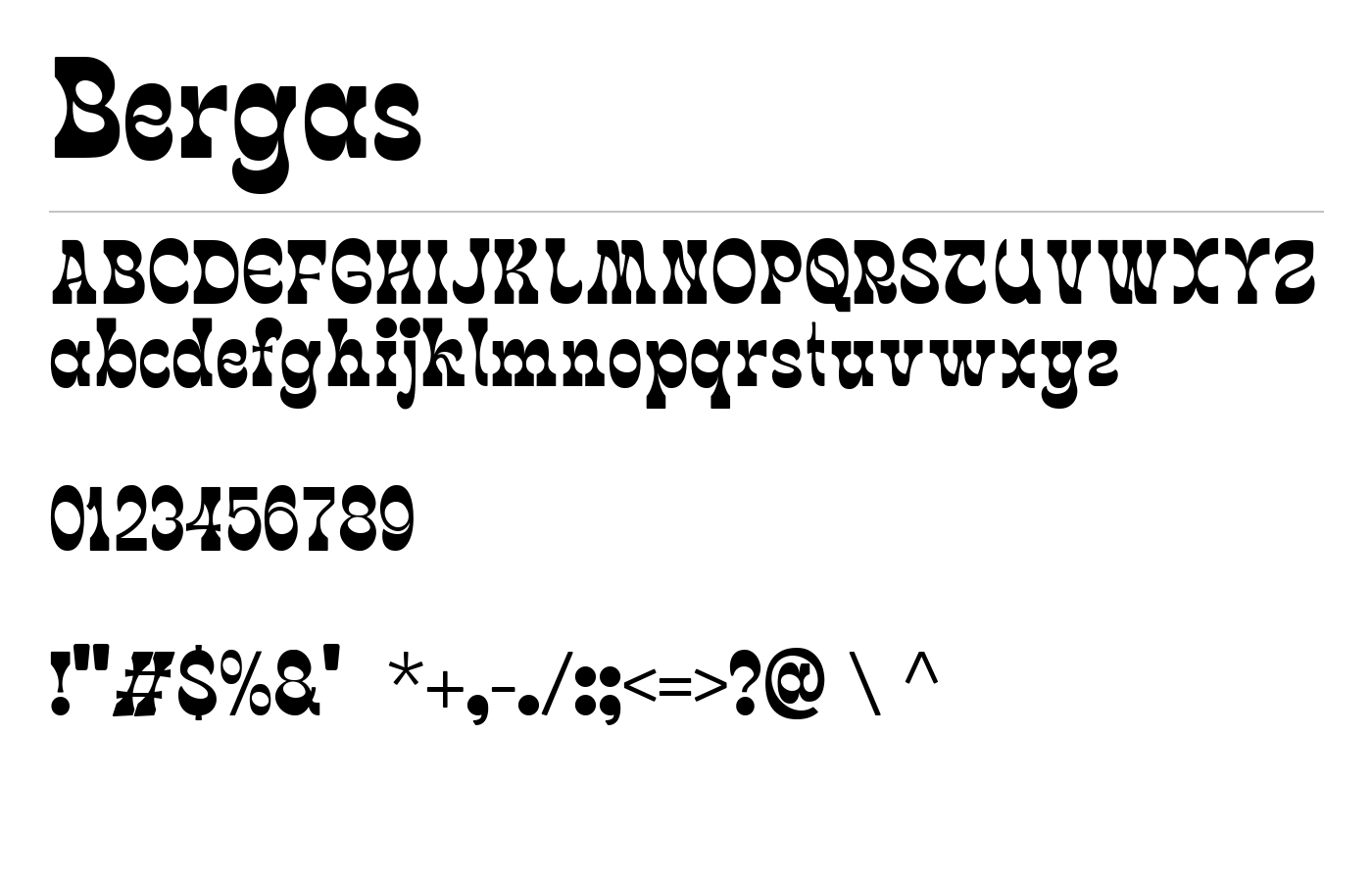
Bergas is a bold, display serif font with a striking high-contrast design that features thick, rounded serifs and tightly spaced letters, creating a vintage yet playful personality. Its unique, stylized forms and double-story characters make it ideal for eye-catching headlines, logos, and packaging where a bold, creative statement is needed. This font works beautifully in branding and editorial projects that want to combine a retro feel with a modern twist.
Bergas Font